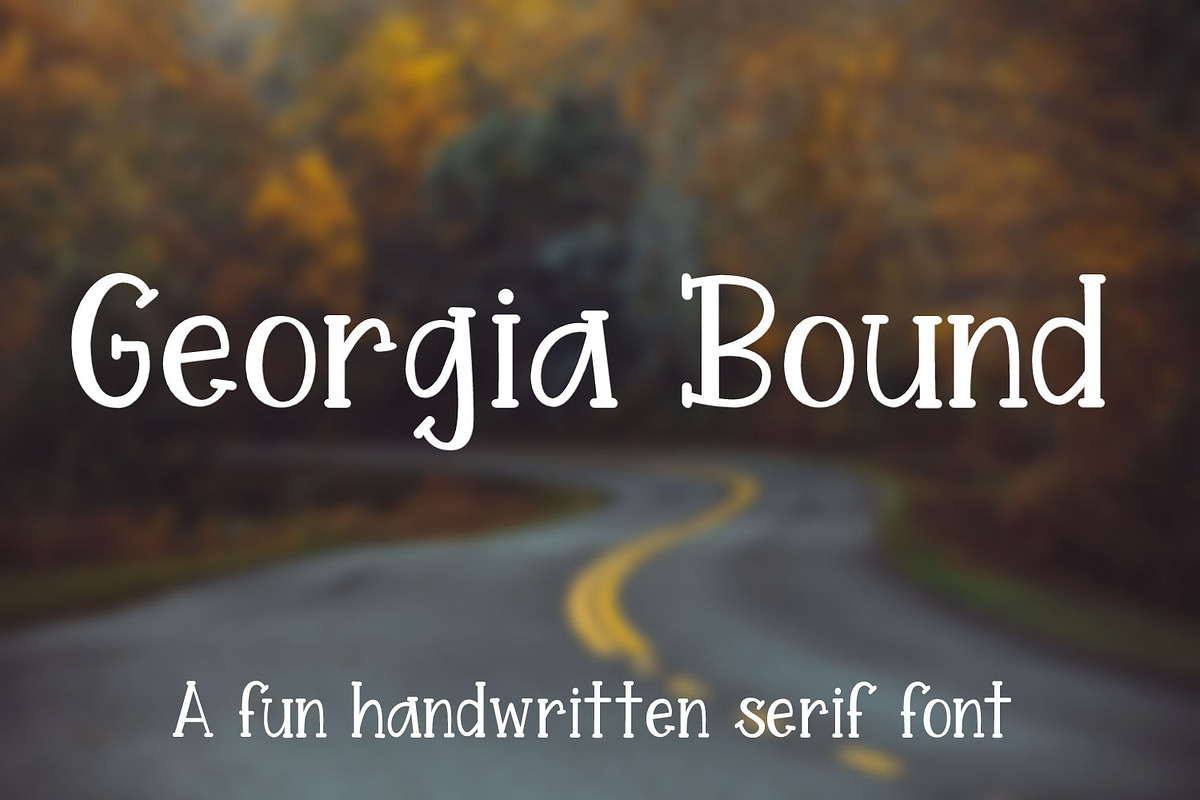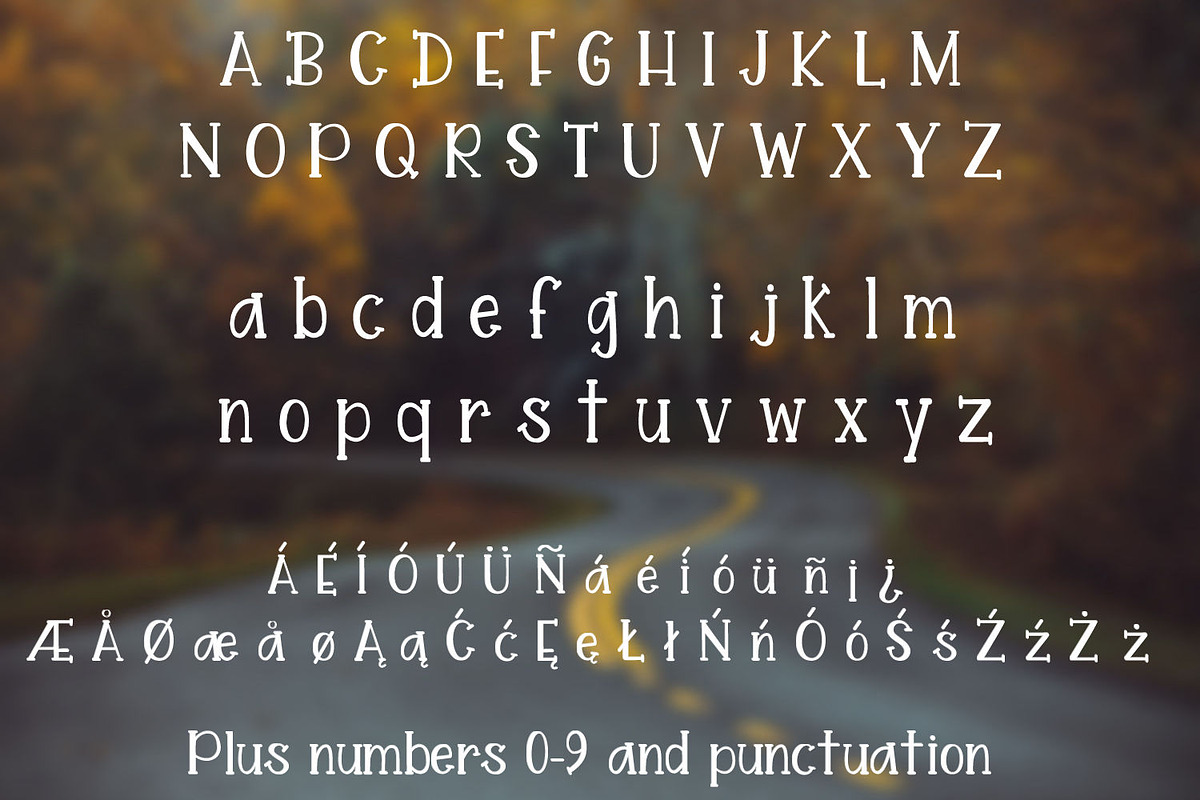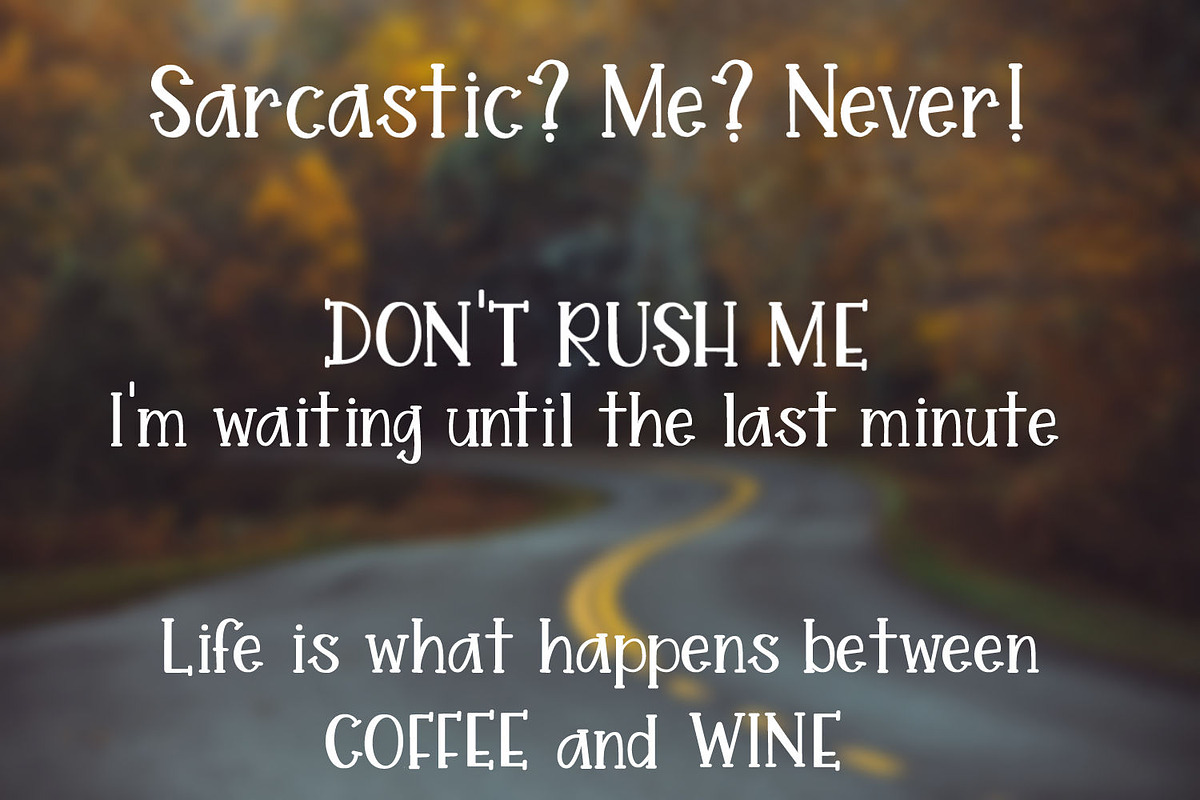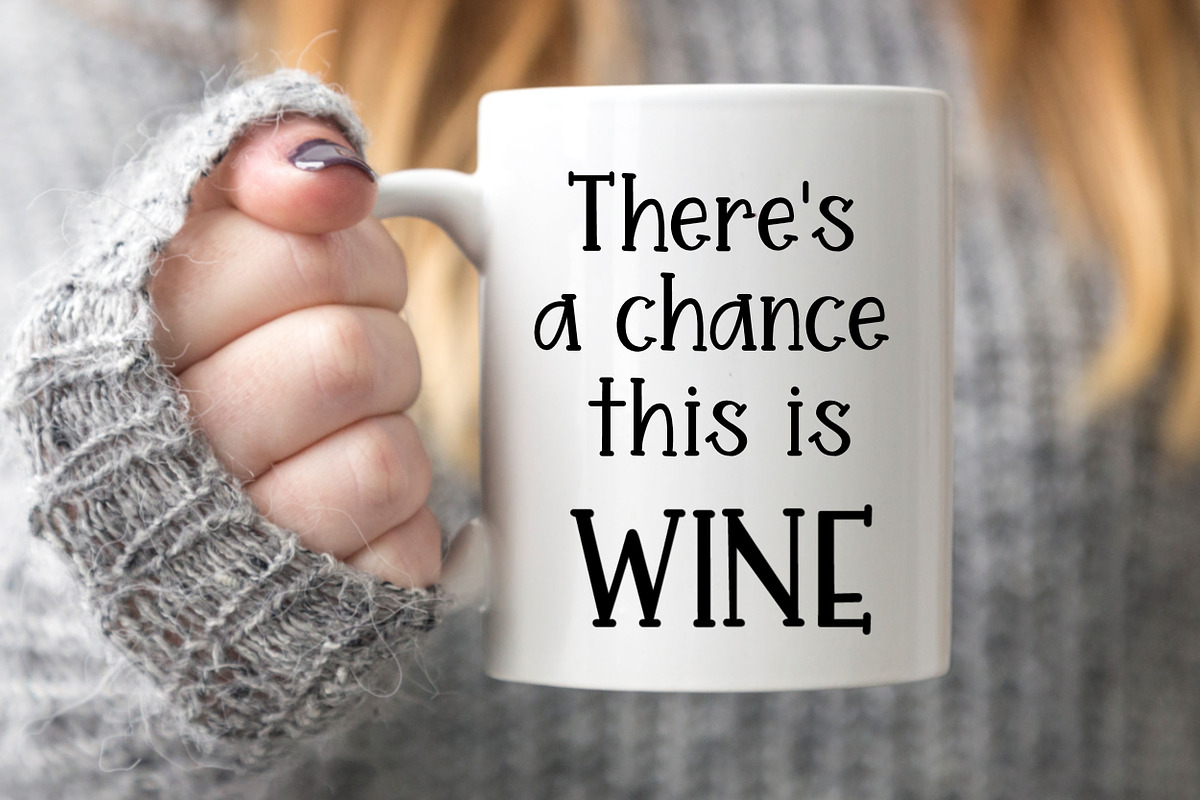
Georgia Bound - Handwritten Serif
Georgia Bound is a fun handwritten serif font made up of capital letters A-Z, lowercase letters a-z, numbers 0-9, accented characters and punctuation.